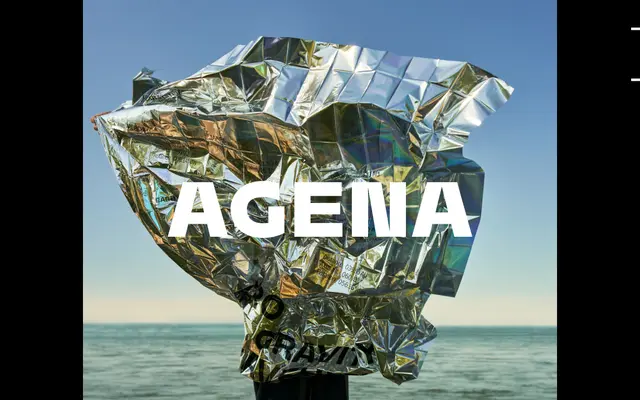
Agena Display
Coppers and Brasses · Étienne Aubert Bonn · 2021
Agena Display specimen from Coppers and Brasses
A 28-style display superfamily by Étienne Aubert Bonn that spans four widths and seven weights, sitting between humanist and geometric sans traditions.
Designed by Étienne Aubert Bonn and released in 2021, the family runs from Condensed to Wide across Light, Book, Regular, Medium, Bold, Extra-Bold and Black. Optical corrections are deliberately exaggerated while stroke contrast is kept low, giving it an unusual tension between geometric rigidity and humanist warmth. The breadth of widths and weights makes it well suited to editorial and poster work where mixing styles within the same family is desirable.
The foundry describes Agena as bridging 1960s humanist sans-serifs and modern geometric superfamilies, with exaggerated optical corrections and low stroke contrast — placing it between humanist and geometric sans traditions.